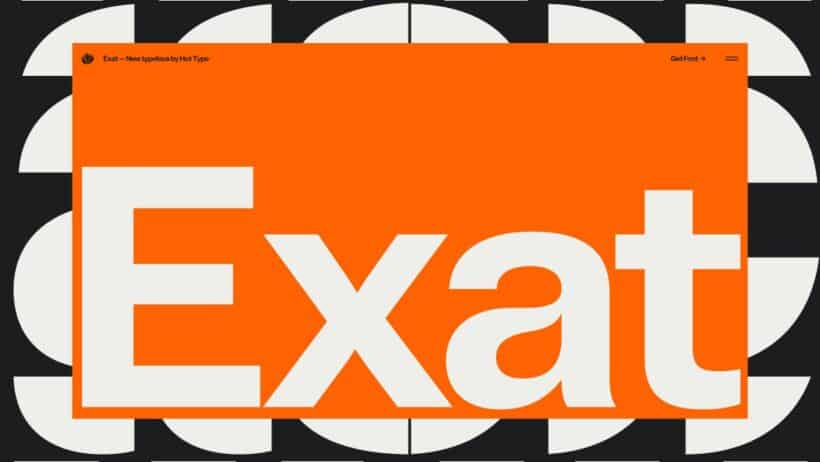
Exat Variable Font Microsite, Interactive Showcase Turns Type into a Responsive Living System
Watch Exat’s variable font live, scroll driven and cursor reactive, specimens morph weight, width and color in a kinetic typographic showcase
Exat Makes Type Feel Alive
As a branding curator I champion work that turns systems into stories. Studio Size and Hot Type treat Exat as living infrastructure, not mere ornament. Scroll and cursor interactions reveal axes of weight and width with playful clarity. The site balances spectacle and legibility, guiding attention across condensed, normal, and wide forms. Every motion feels purposeful, demonstrating a typeface built for dynamic branding systems.
This case study is a masterclass in translating type design into interactive product narratives. You will see how subtle interactions reduce visual fatigue, while exposing 1,715 glyphs across scripts. Technical craftsmanship is evident in GSAP, ScrollTrigger, Lenis implementations and WordPress integration. For brands seeking typographic systems that scale, this project offers tangible inspiration. Dive into the full study to see the design decisions, code choices, and visual choreography.
The interactive grid is an elegant primer on responsive typography, inviting immediate understanding. Color and motion signal weight changes clearly, without relying on explanatory text. Design Space lets you compare styles in real time, a useful tool for identity work. This is essential viewing for designers, brand strategists, and typographers aiming to modernize systems. Expect rigorous aesthetic discipline throughout.